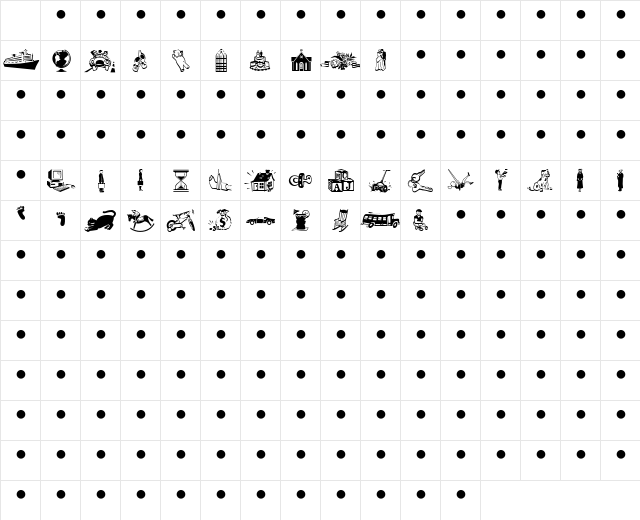
Milestones Two MT Regular Free Font
Milestones Two MT Regular
Design Context for Milestones Two MT
Milestones Two MT is a composed and adaptable typeface that performs quietly and consistently across a wide range of design contexts.